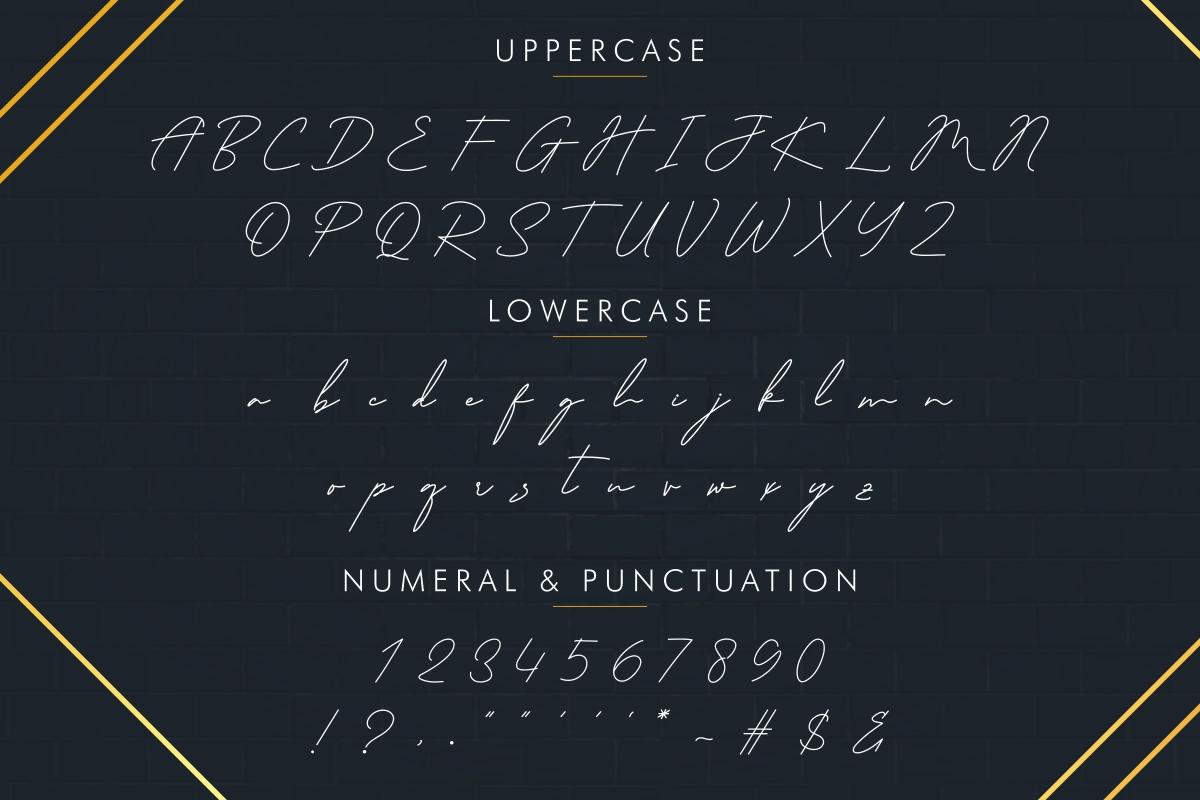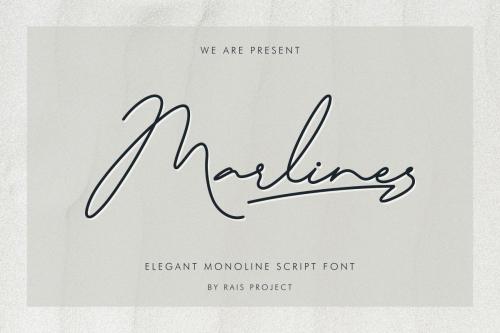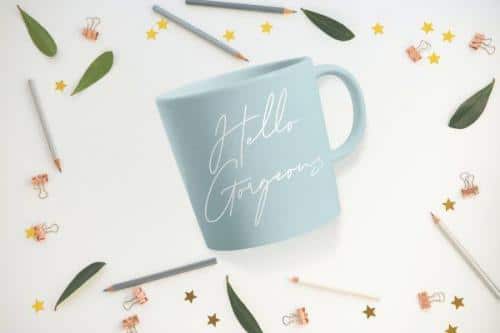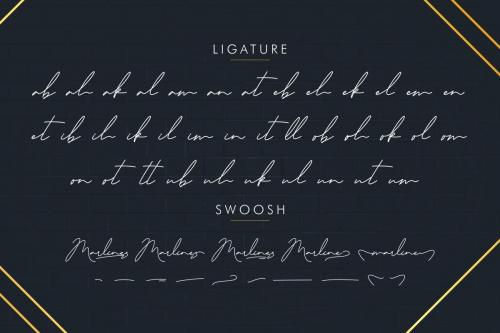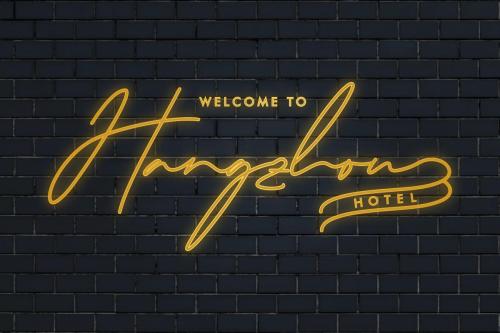
Marlines Font is a signature handwriting font. Marlines Font has gorgeous uppercase and lowercase letters, numerals, a large range of punctuation and ligatures.
Marlines Font includes full set of gorgeous uppercase and lowercase letters, numerals, a large range of punctuation and ligatures. We made Marlines looks simple yet stunning handwritten looks, giving realistic hand-lettered style.